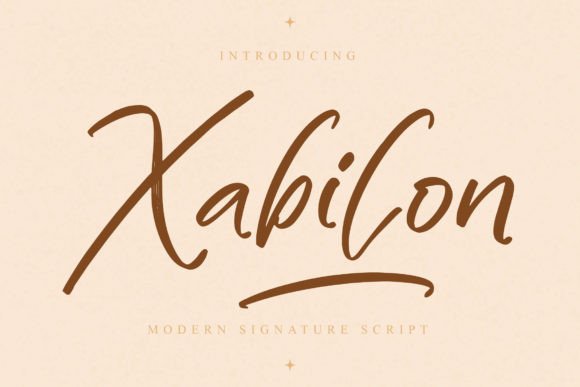
Indulge in the opulent world of Xabilon Font, a masterpiece crafted by Glorytype Studio, designed to transform your creative visions into captivating realities. This exquisite script family, renowned as the "Best Font For Fashion," will ignite your imagination and elevate your designs to unprecedented heights.
Step into a realm of boundless possibilities, where Xabilon's graceful curves and mesmerizing flourishes dance across your projects, enchanting viewers with its captivating allure. Allow its timeless elegance to adorn your logos, branding initiatives, and homeware creations. Let the font's enchanting touch enhance your product packaging, evoking a sense of luxury and sophistication.
With Xabilon, every mug, quote, and poster becomes a work of art. Its versatility extends to shopping bags, t-shirts, and book covers, adding a touch of brilliance to your personal style. Transform name cards, invitation cards, and greeting cards into cherished keepsakes that speak volumes.
Unveil the allure of Xabilon in photography and watermarks, leaving an indelible mark on your most cherished moments. Its presence in special events will create a lasting impression, while its timeless beauty will grace all your projects with an unforgettable script taste.
Embrace the magic of Xabilon Font, a symphony of style and inspiration that will unleash your creativity and captivate your audience. Immerse yourself in its world of enchantment and experience the transformative power of a truly exceptional font.